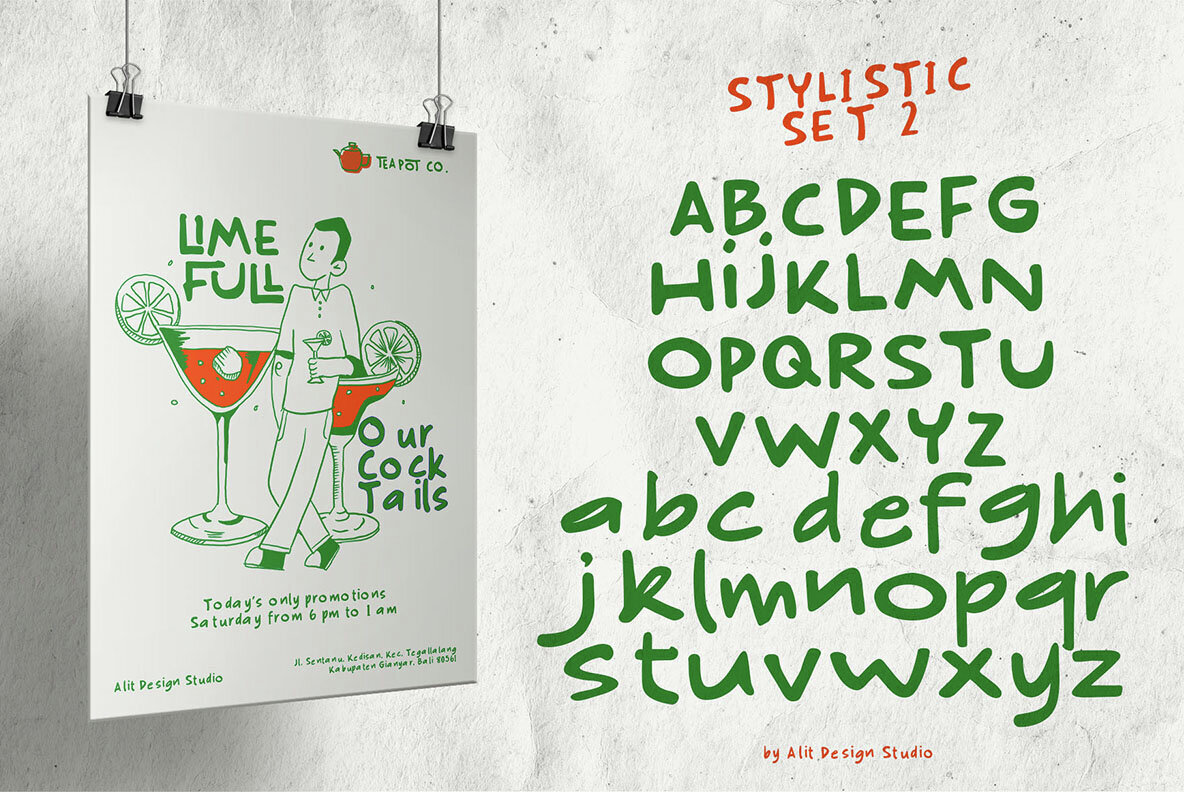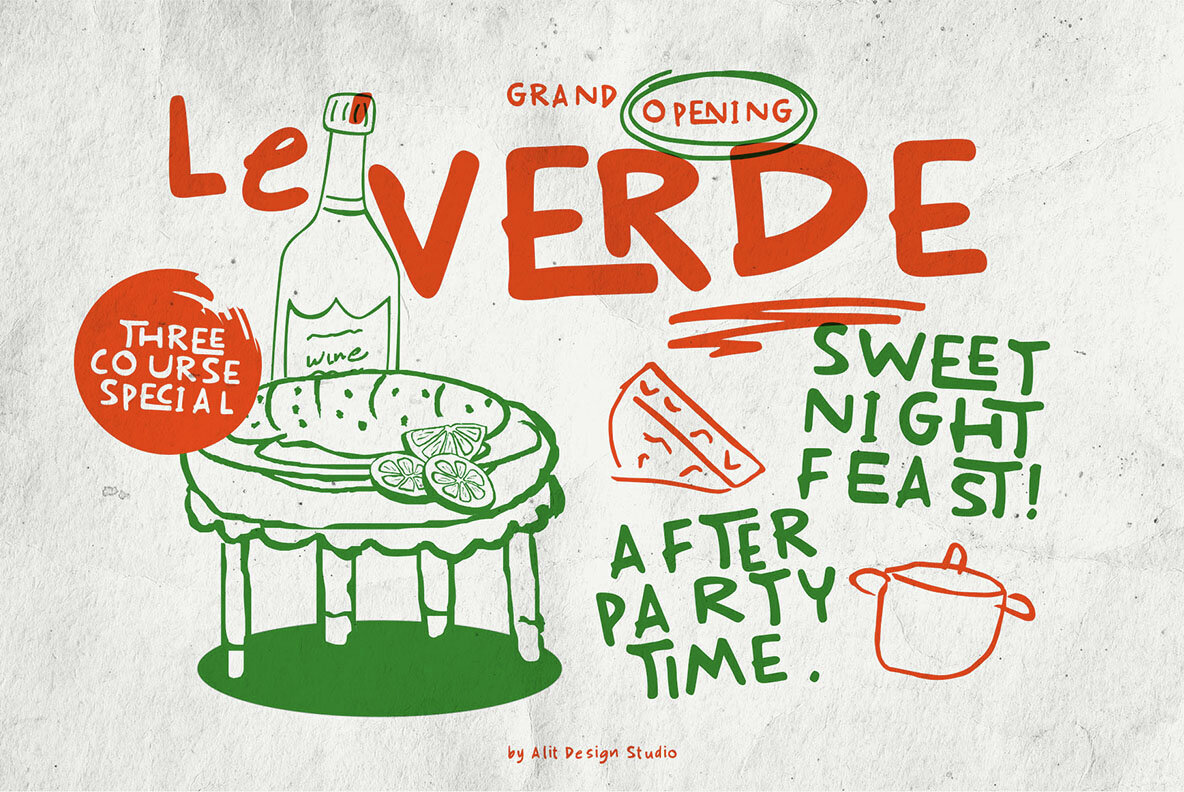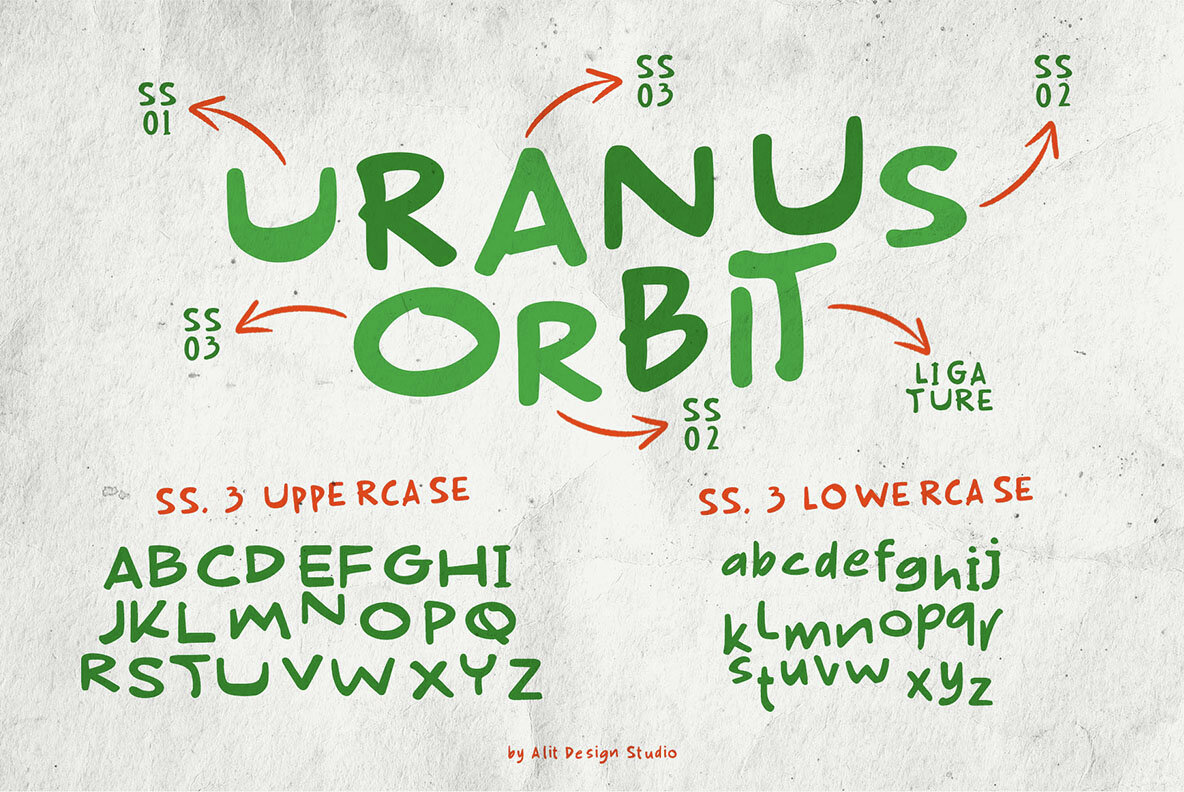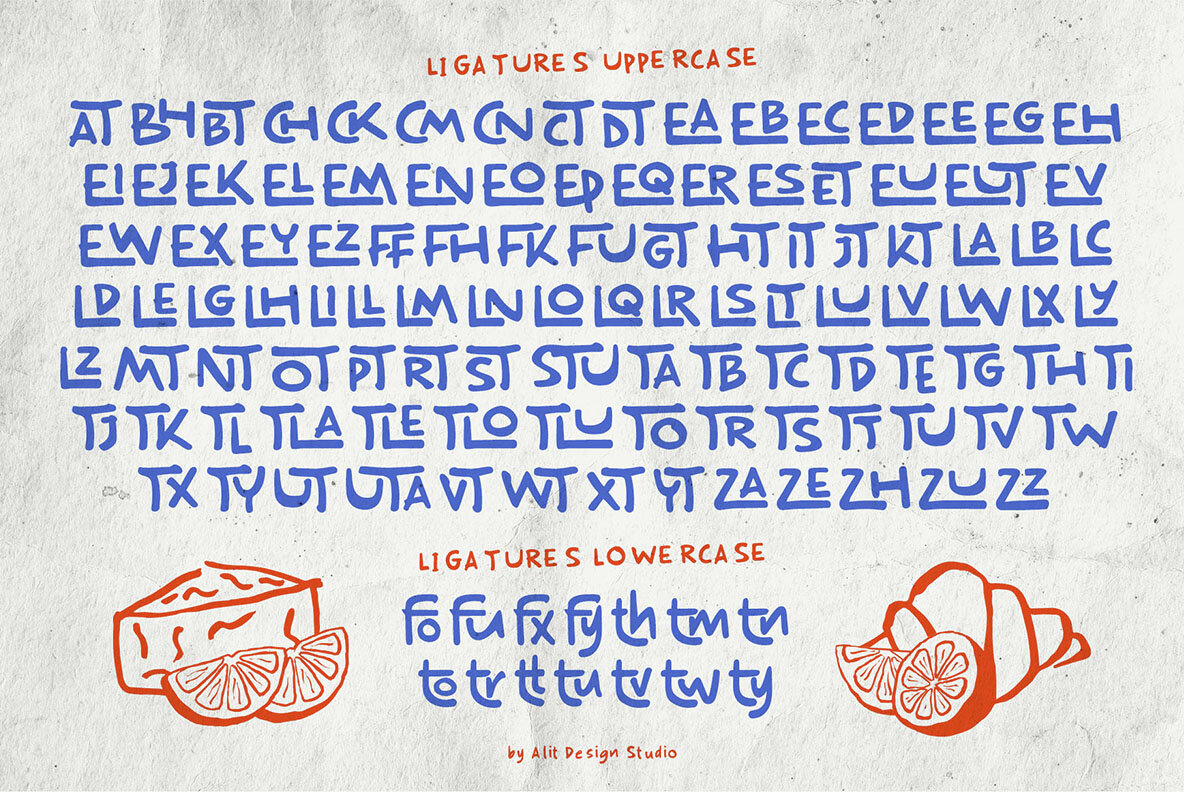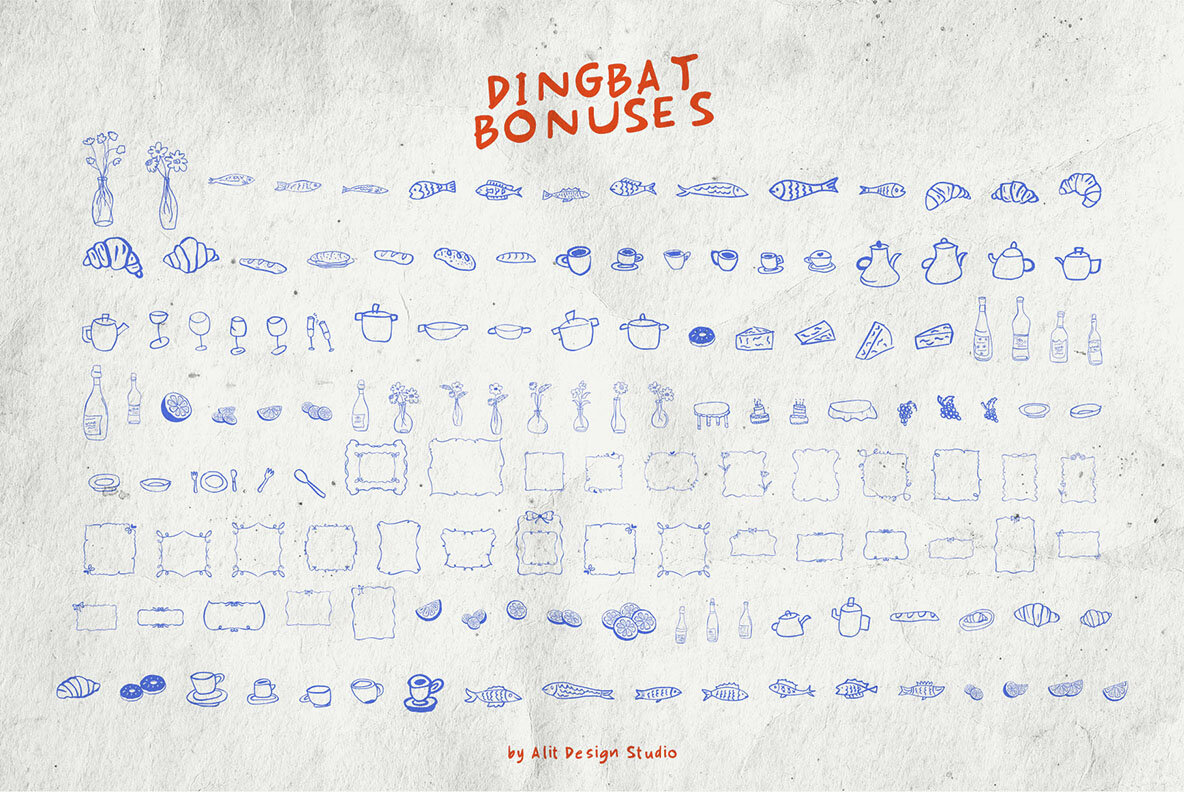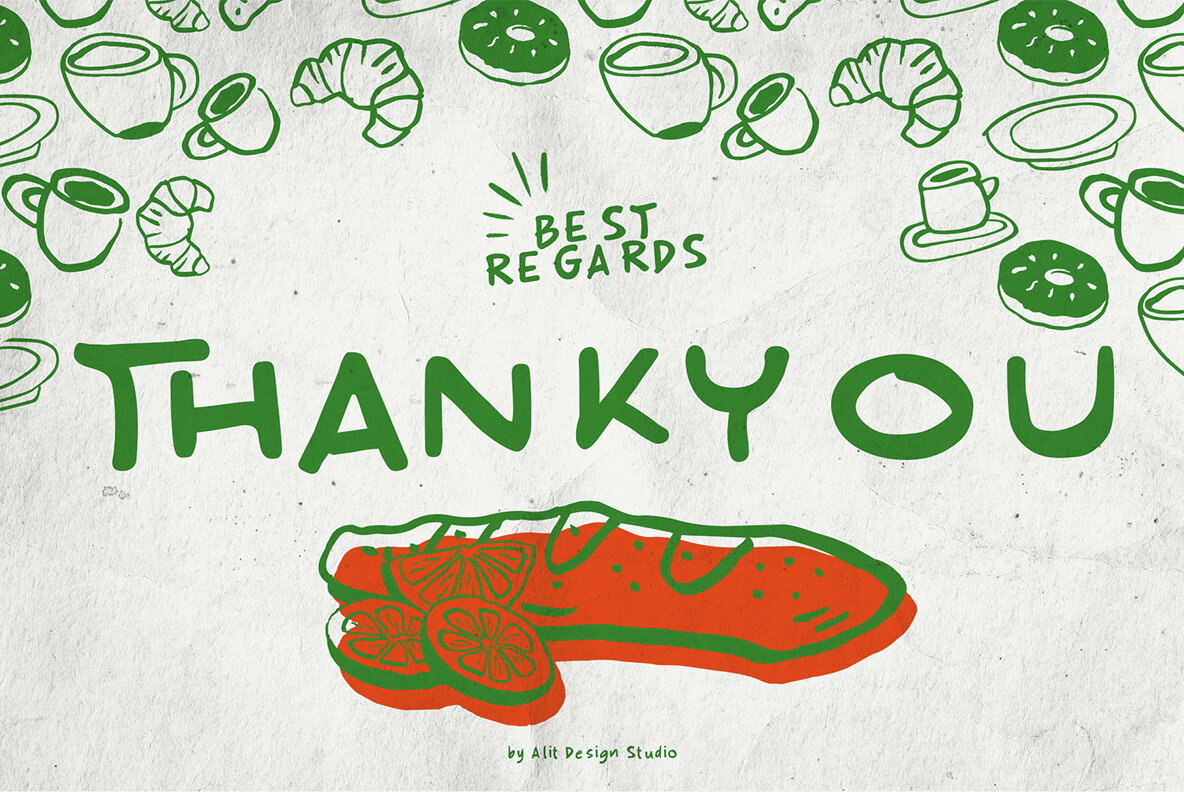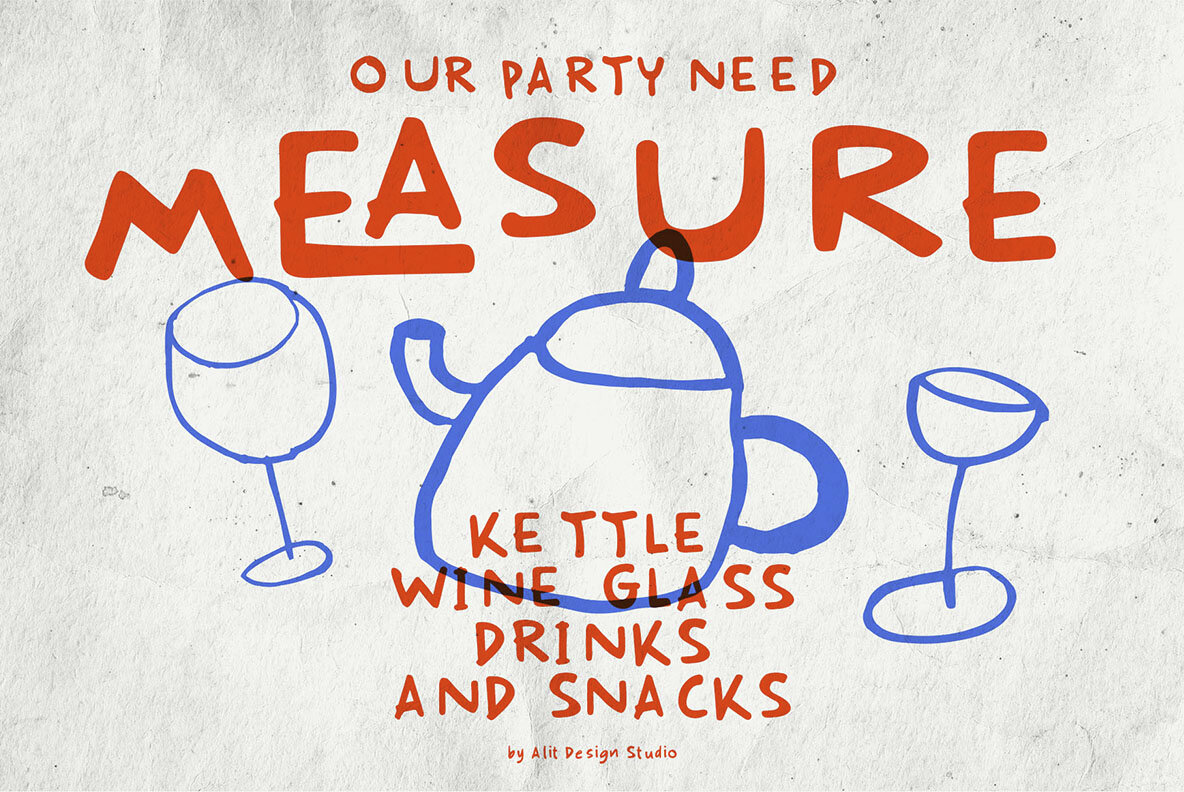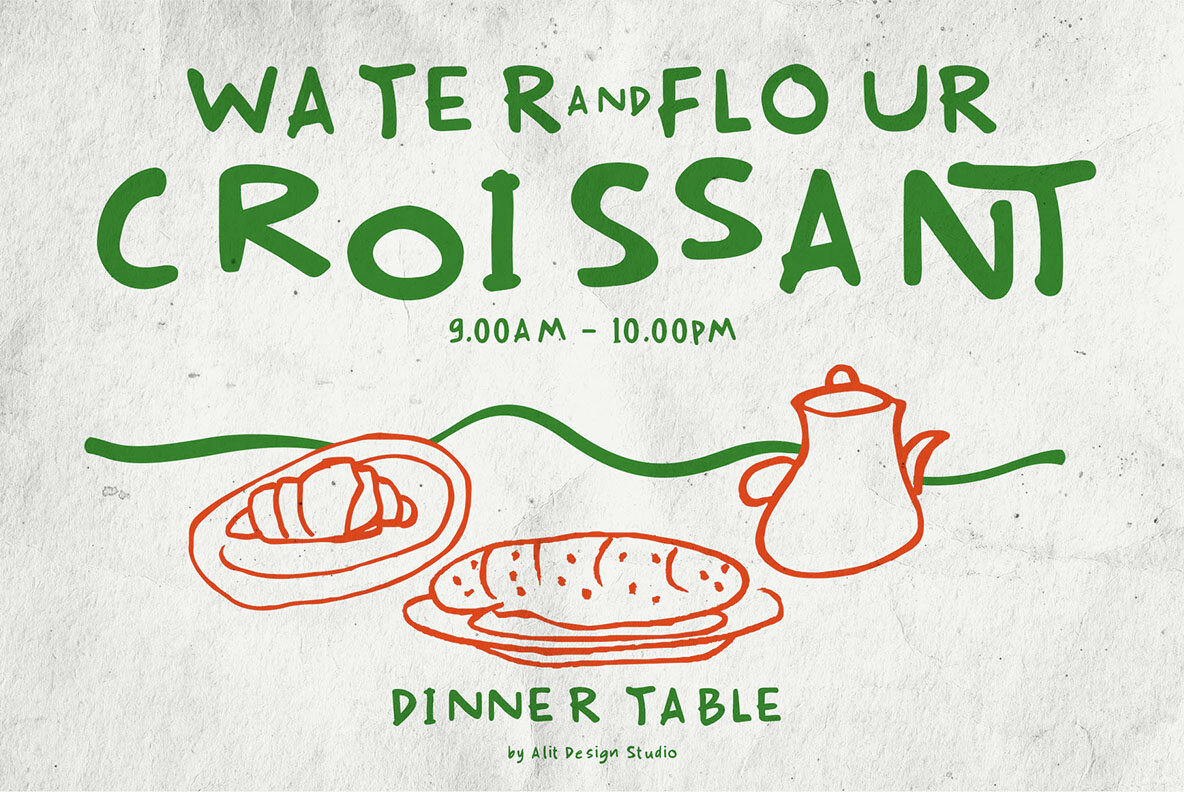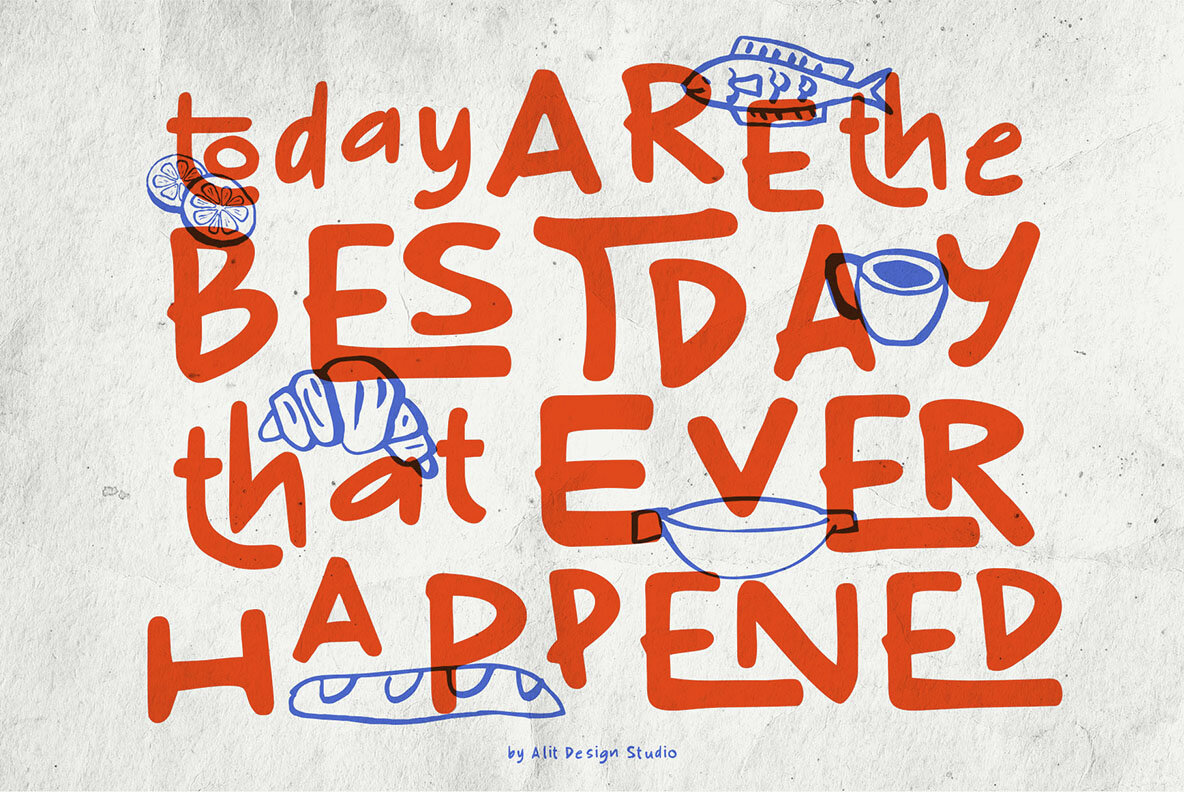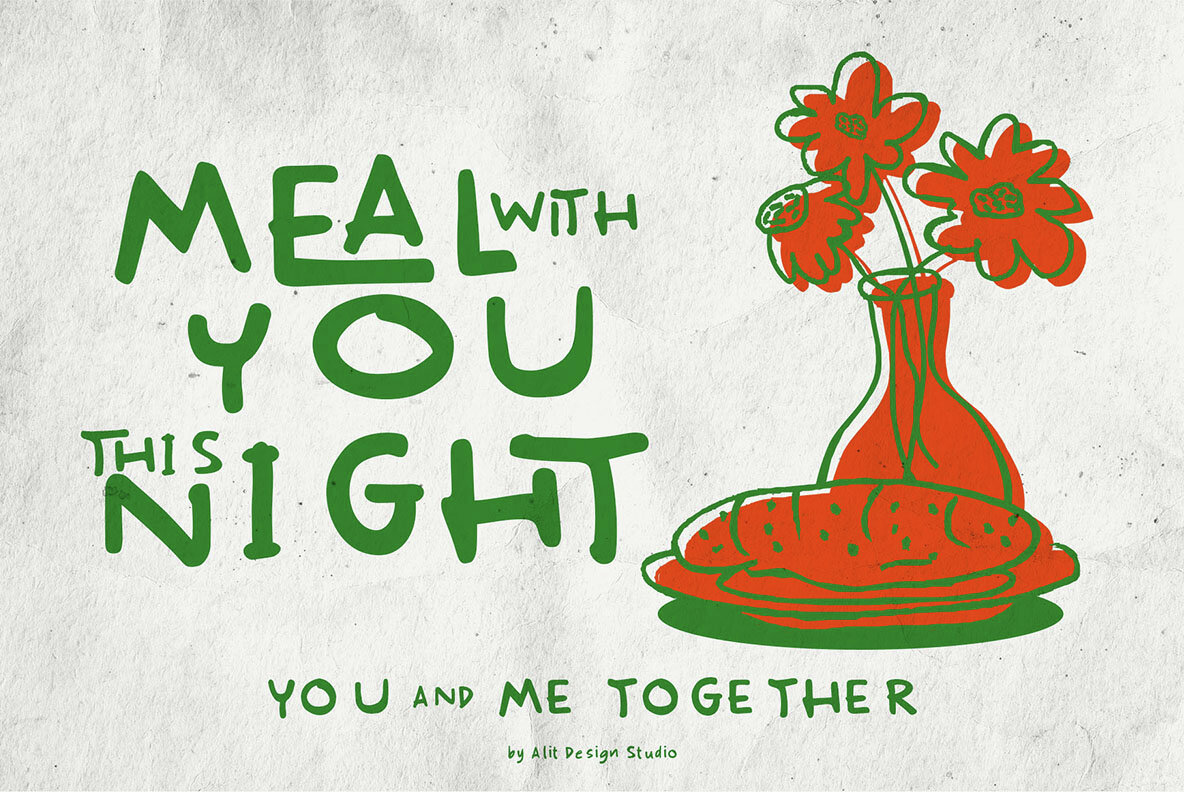
Tomato Belly Font
Introducing "Tomato Belly" – a playful and whimsical handwritten font that dances across the page with the carefree spirit of a child's imagination. With its sans serif design, "Tomato Belly" brings a delightful twist to traditional handwritten fonts, infusing every letter with charm and character. Imagine the innocence of a child picking ripe tomatoes from the garden, their little fingers leaving behind a trail of joyful scribbles on paper. That's the essence of "Tomato Belly" – it captures the essence of youthful spontaneity and creativity, making it perfect for projects that need a touch of lightheartedness and fun. Each letter in "Tomato Belly" is crafted with love and attention to detail, creating a font that feels as unique as a fingerprint. Whether you're designing greeting cards, children's books, or playful branding materials, "Tomato Belly" adds a dash of personality that's sure to bring smiles to faces young and old. Let your imagination run wild with "Tomato Belly" – the handwritten font that turns every project into a whimsical adventure.